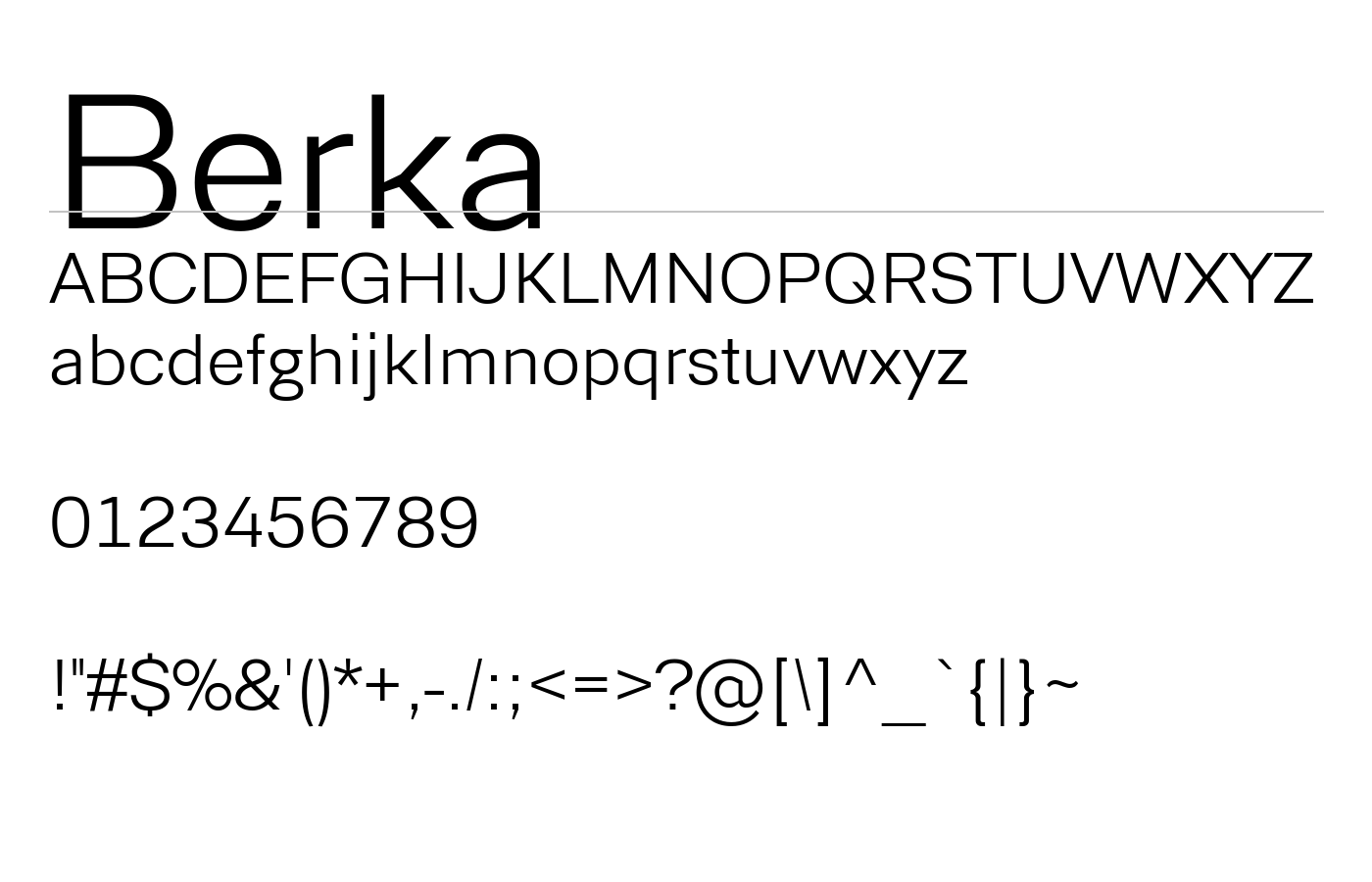
Berka is a clean and modern sans serif font characterized by its light weight, regular width, and open, airy letterforms that create a contemporary and approachable feel. Its simple yet elegant design, with a moderate x-height and well-balanced proportions, makes it highly versatile for both digital and print use, excelling particularly in minimalist branding, editorial layouts, and user-friendly interfaces. This font’s clarity and understated sophistication make it ideal for projects seeking a professional and modern appearance without unnecessary ornamentation.
Berka Font
About Berka Font